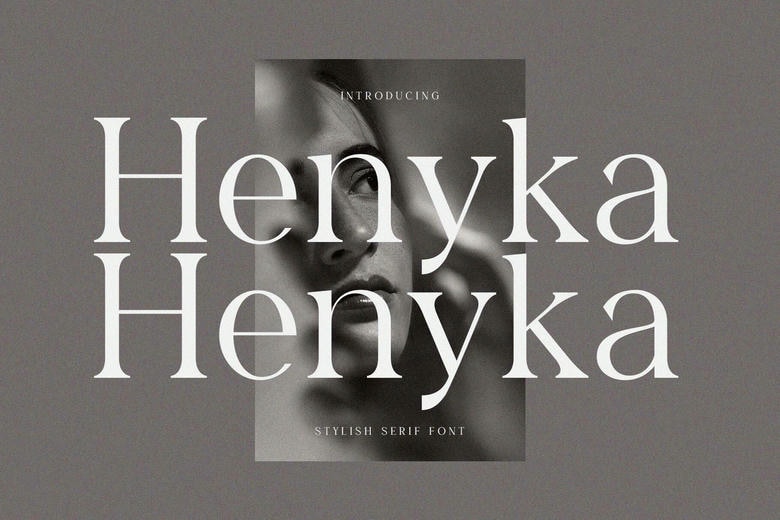
Henyka Font
Henyka is a stylish serif font that blends classic elegance with modern aesthetics. Featuring sleek lines, balanced contrast, and graceful curves, it’s ideal for high-fashion branding, magazine titles, wedding invitations, and design-forward logos. Henyka offers a striking yet soft sophistication that enhances any visual composition.
Henyka Serif Font